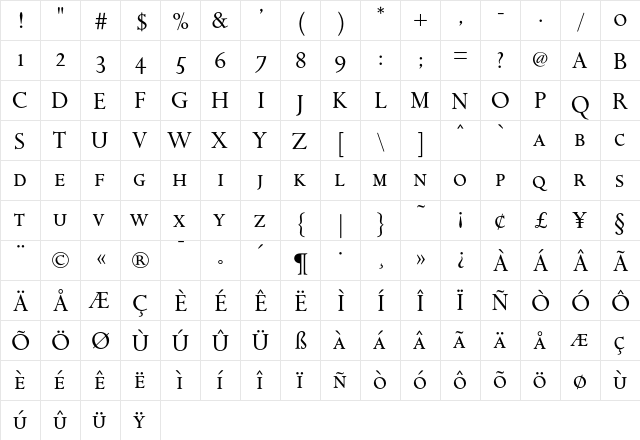
Aries RomanCapSmallCap
Design Context for Aries Typeface
Aries offers clean, dependable letterforms without strong stylistic allegiance, making it a practical choice for designers who need flexibility.